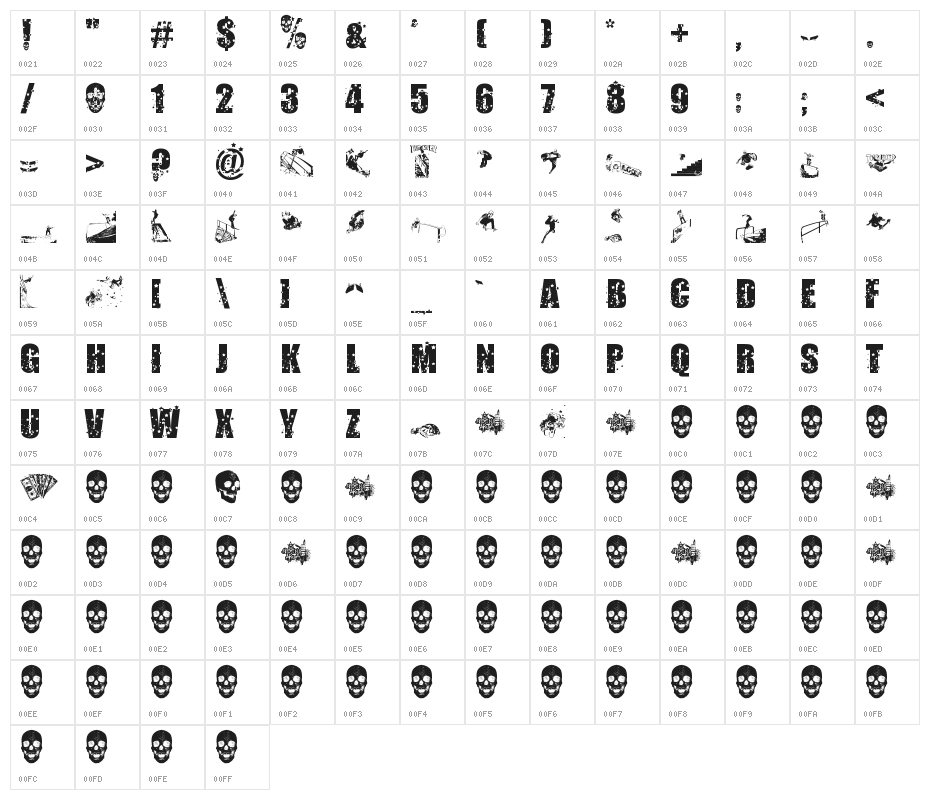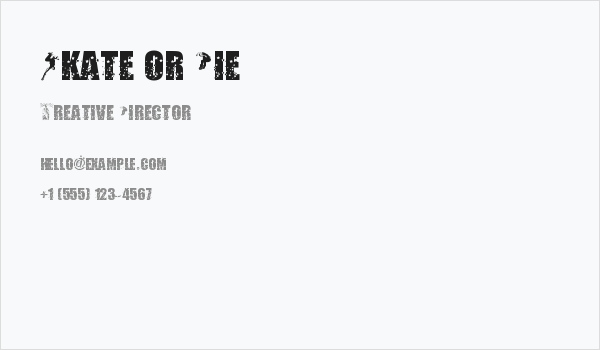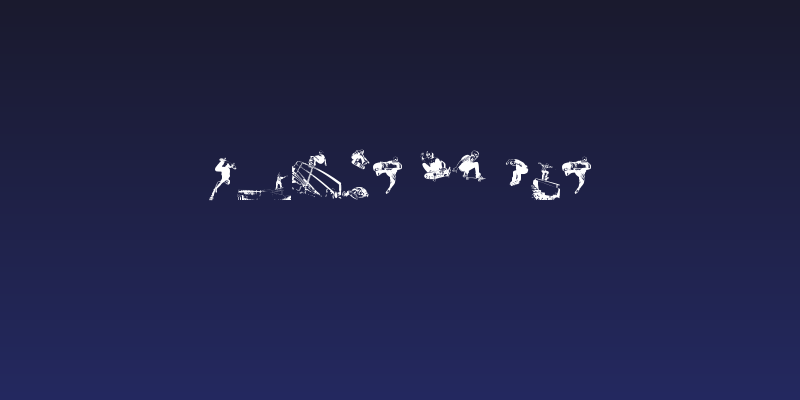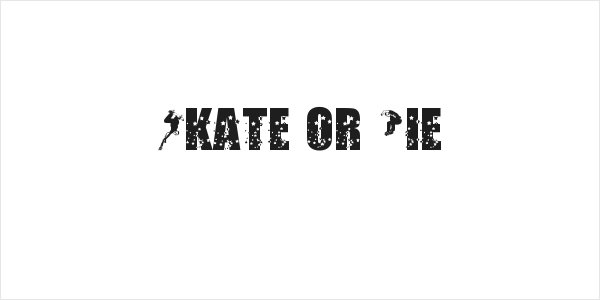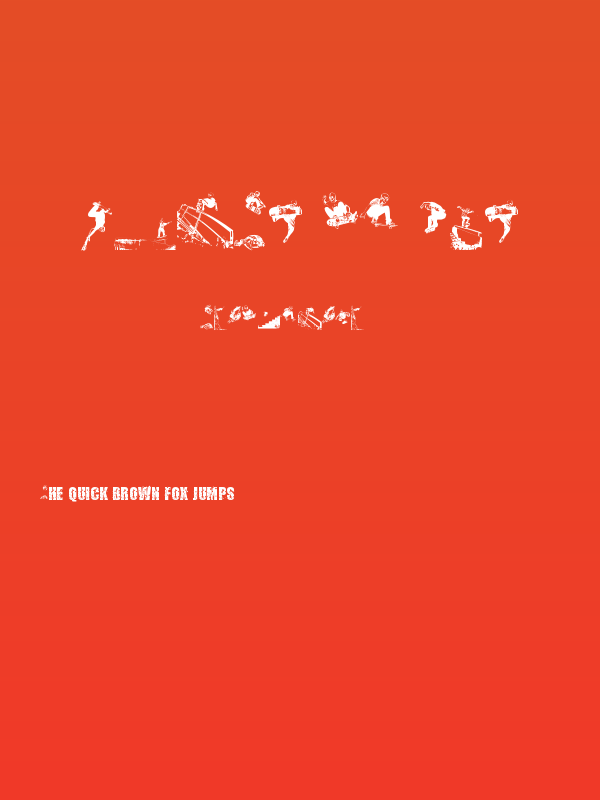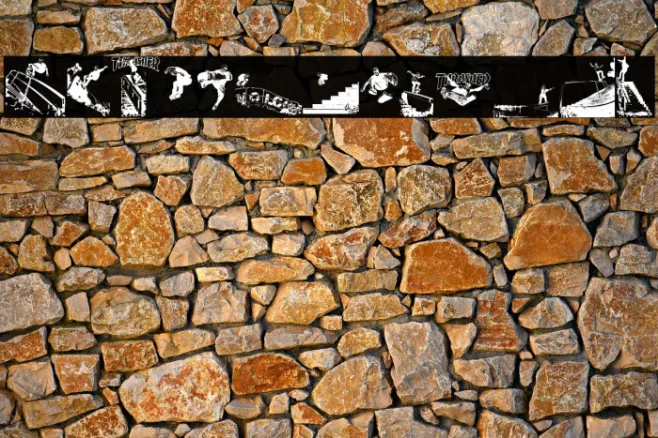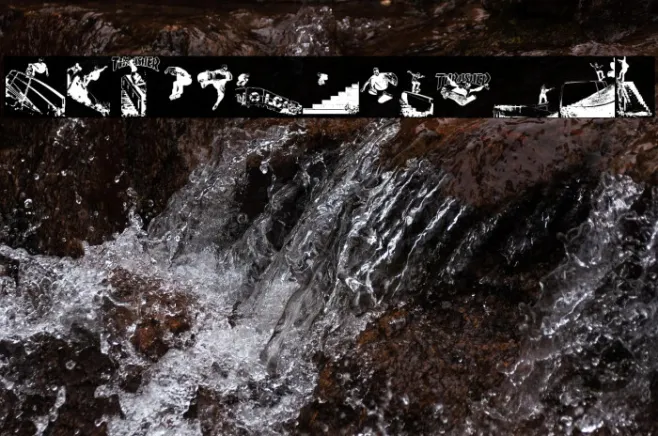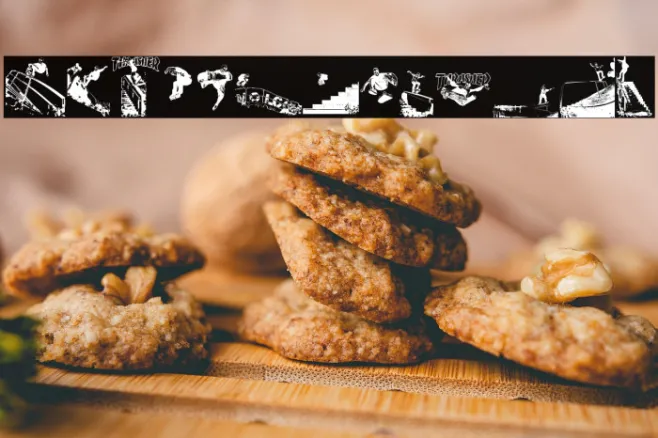
Skate or Die Font
Skate or Die Description
This font features a bold and edgy design, characterized by a distressed and grunge aesthetic. The letters are filled with star-like cutouts, giving them a unique, textured appearance. The uppercase letters are prominent and impactful, making them ideal for attention-grabbing headlines. The numbers and special characters maintain the same distressed style, ensuring consistency across all elements. This font exudes a rebellious and energetic vibe, perfect for projects that aim to convey a sense of adventure or nonconformity.
| Overall Style | Grunge, Edgy |
| Proposed Projects | Perfect for skateboarding event posters, music album covers, urban-themed merchandise, and graffiti-inspired artwork. |